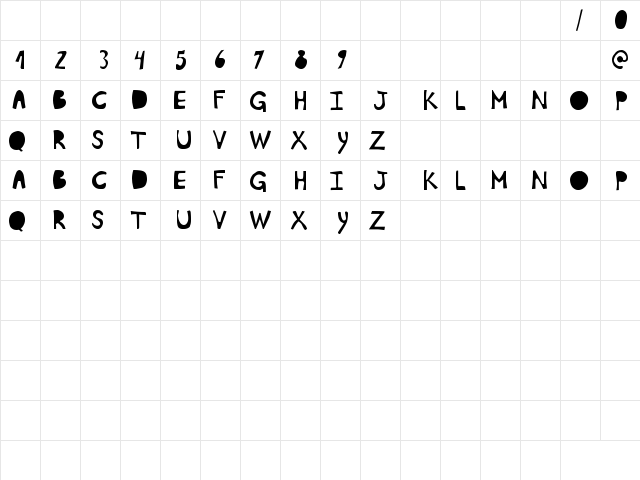
Plumon Regular
Design Context for Plumon Typeface
Plumon is a composed and adaptable typeface that performs quietly and consistently across a wide range of design contexts.